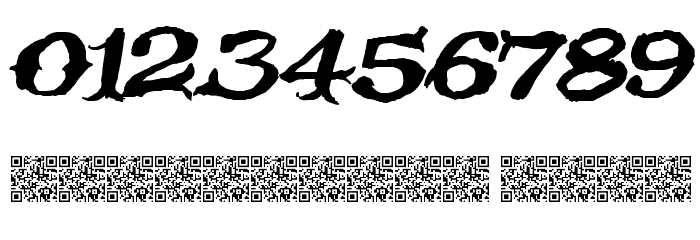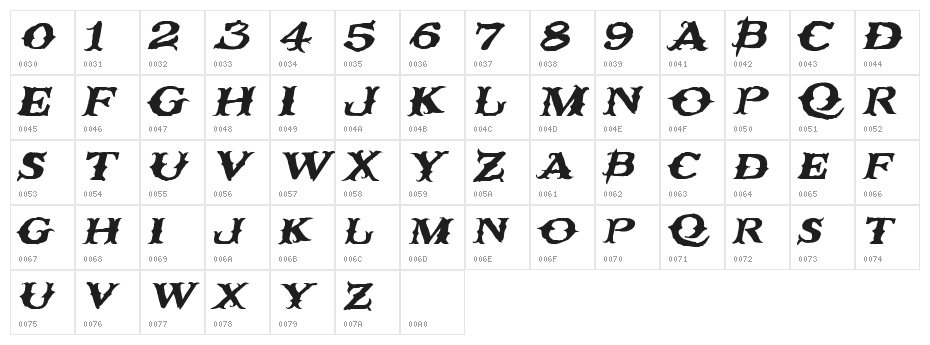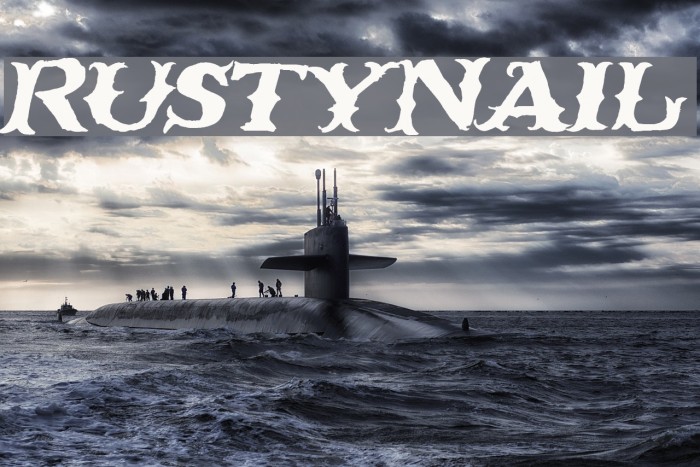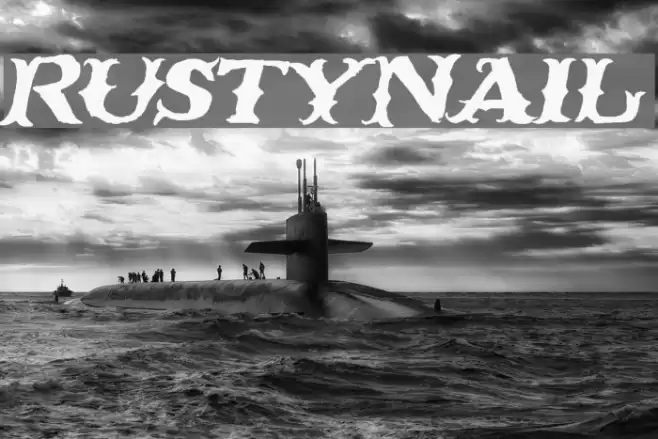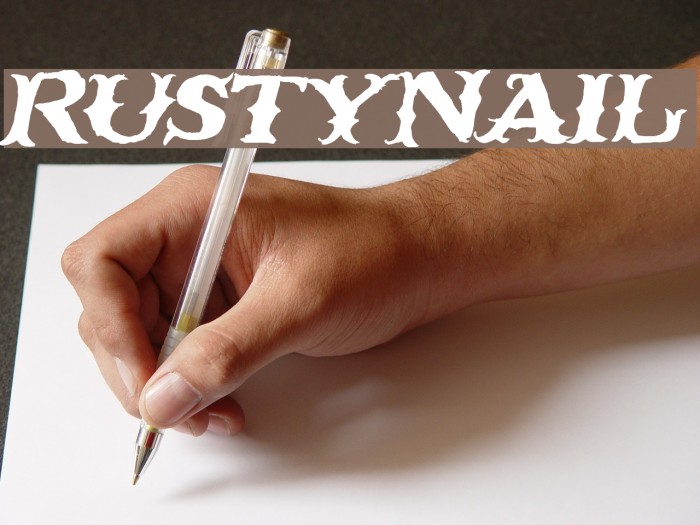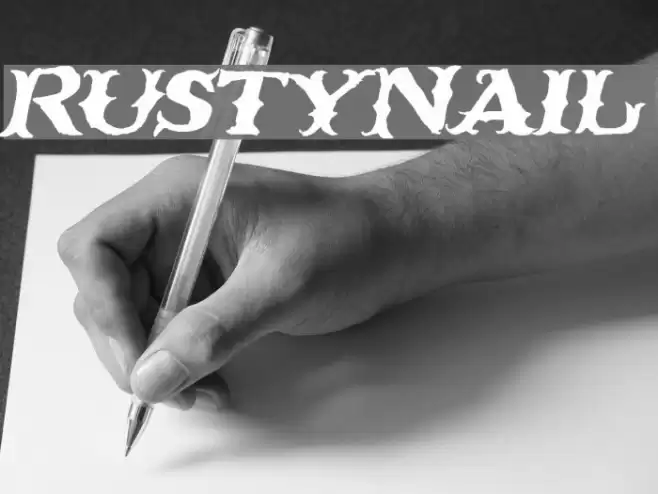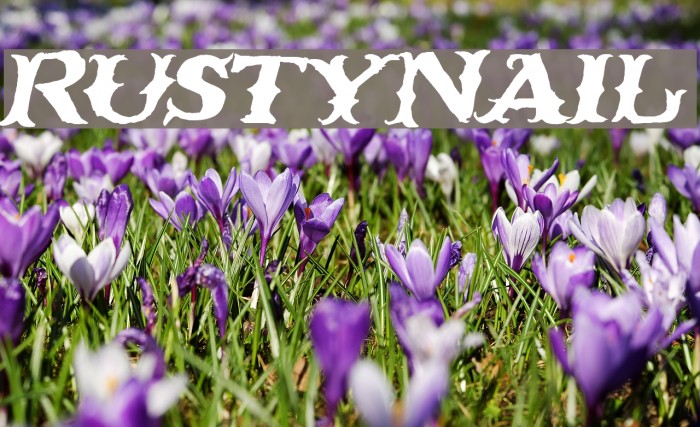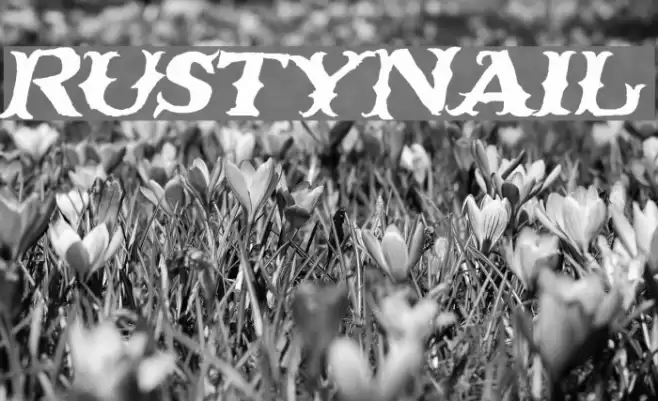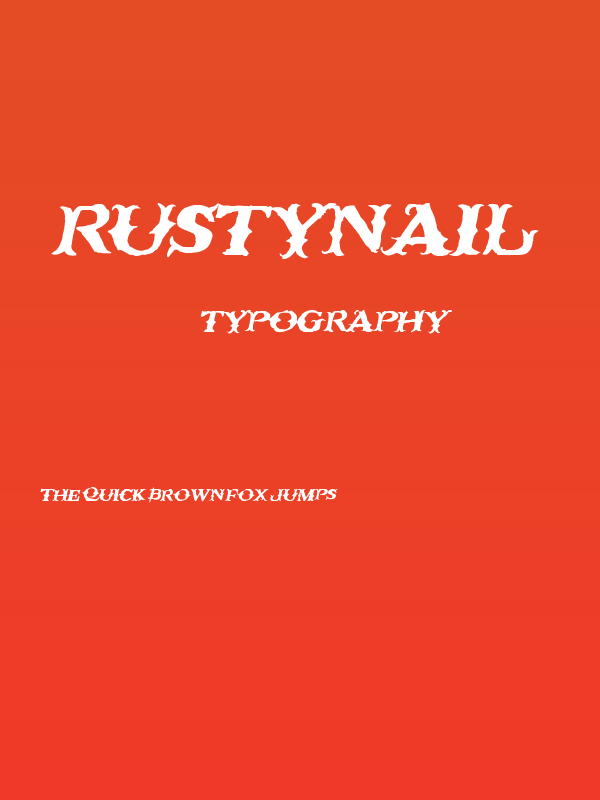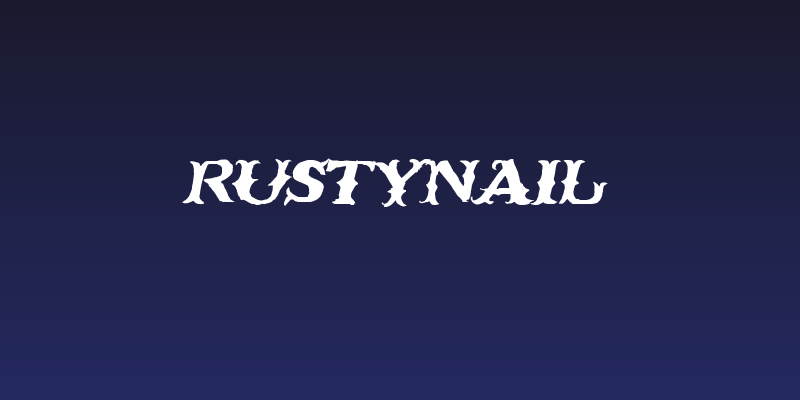
RustyNail Font
RustyNail Description
This font features a rugged, distressed appearance reminiscent of weathered metal or aged wood. The characters have a bold, jagged style with uneven edges, giving them a unique, hand-crafted look. The uppercase and lowercase letters maintain a consistent design, with sharp angles and irregular contours that create a sense of movement and energy. The numbers follow the same aesthetic, ensuring uniformity across all characters. This font's distinct style makes it ideal for projects that require a gritty, industrial, or vintage feel.
| Proposed Projects | Ideal for branding, posters, album covers, or any project needing a gritty, industrial vibe. |